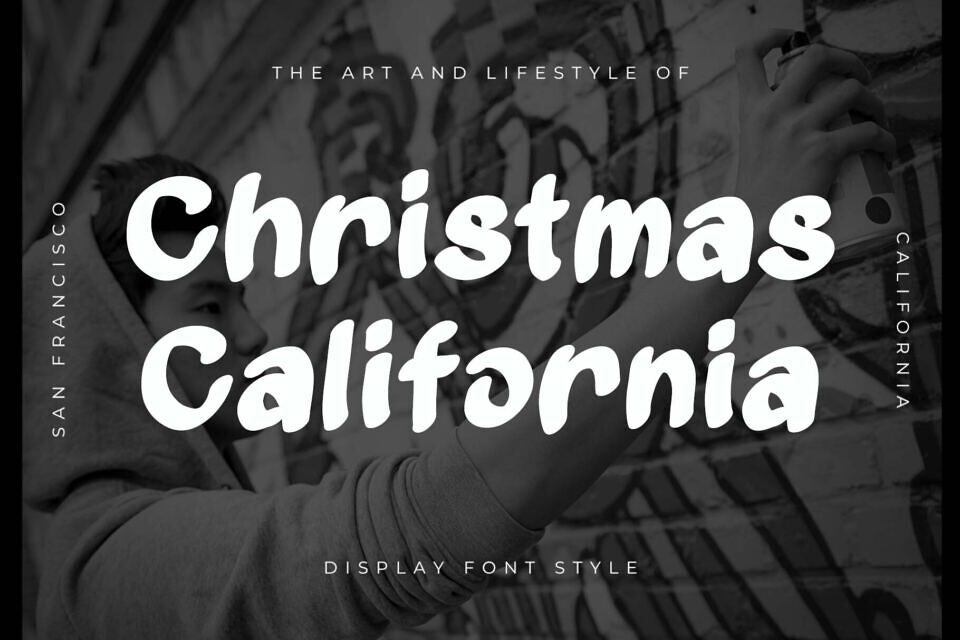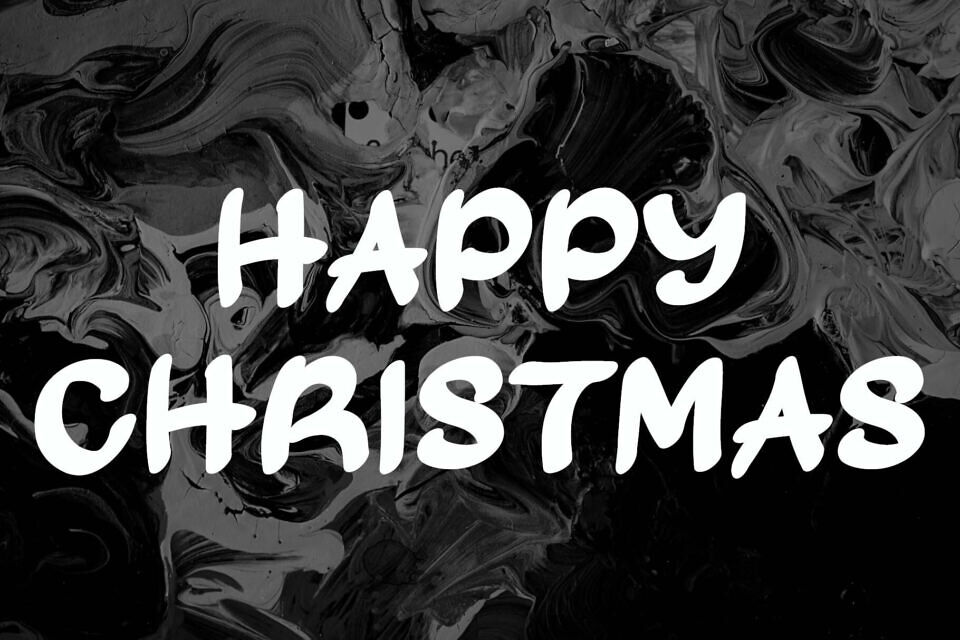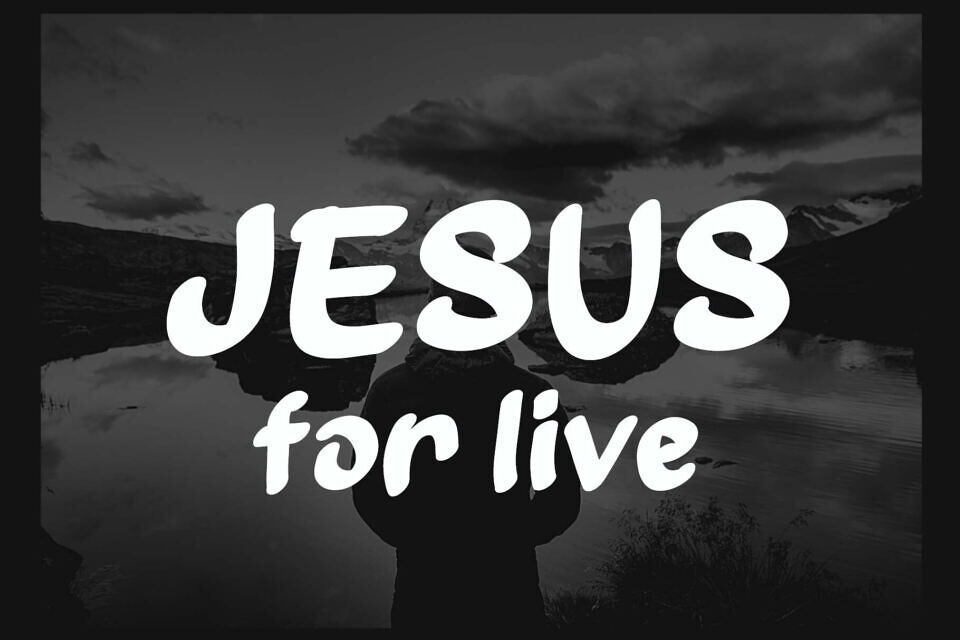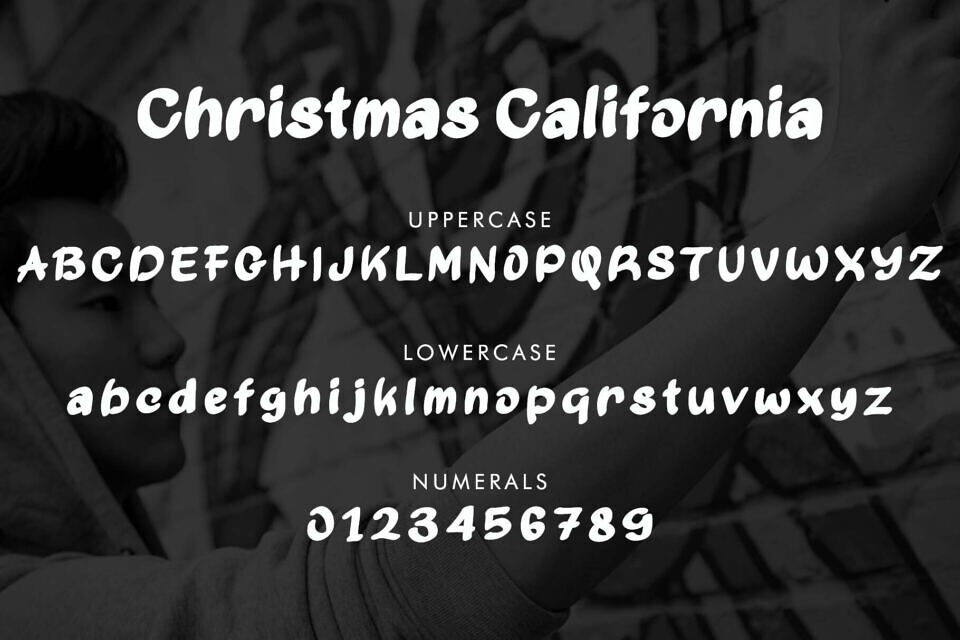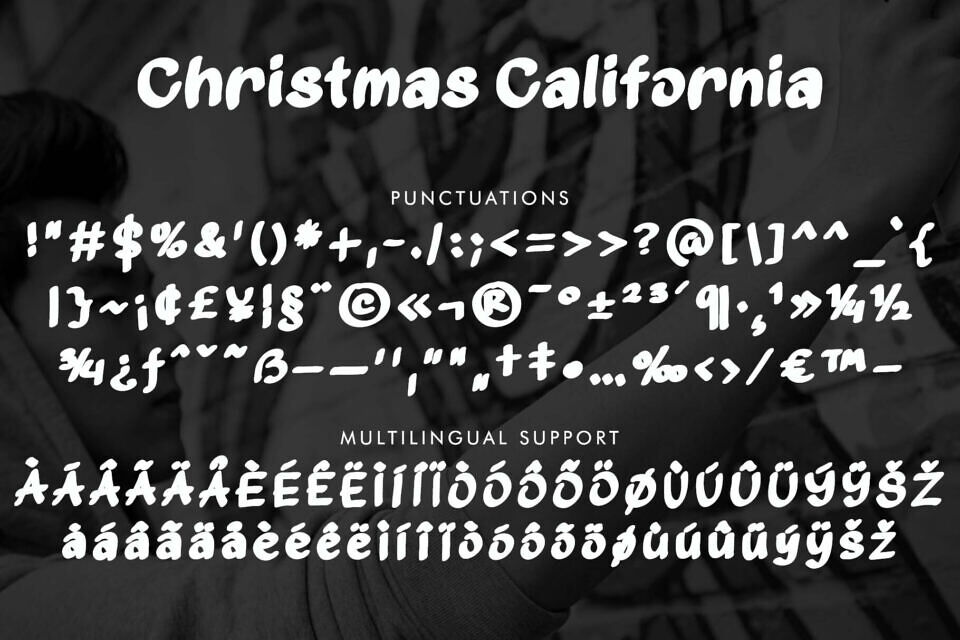
Christmas California is a bold and expressive display font that blends a festive spirit with laid-back, urban energy. With smooth, rounded strokes and a slightly playful brush style, this typeface radiates warmth and creativity—perfect for bringing a fresh twist to your holiday and street-style inspired designs.
Whether you’re designing seasonal posters, modern greeting cards, urban merchandise, or social media content, Christmas California delivers a confident and stylish look that stands out. Its handcrafted appearance adds an authentic, personal vibe, ideal for projects that bridge the gap between festive cheer and contemporary cool.